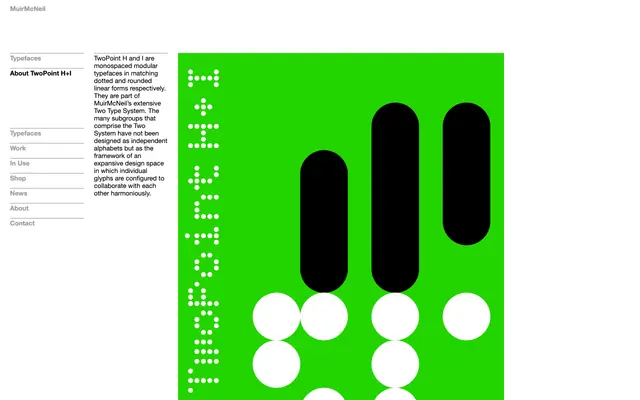
TwoPoint H+I
A pair of monospaced modular typefaces in dotted and rounded linear forms, conceived as components within MuirMcNeil's broader Two Type System.
TwoPoint H and I are matched variants within the Two Type System, distinguished by their dotted and rounded linear constructions respectively. Rather than standing as independent alphabets, they function as part of a larger framework in which individual glyphs are designed to work in concert across the system's many subgroups. The result is a highly systematic approach to type design suited to structured, grid-led graphic work.
TwoPoint H+I are explicitly described as monospaced modular typefaces, built on a systematic grid framework with dotted and rounded linear forms, placing them firmly in the monospaced category with a modular subcategory.